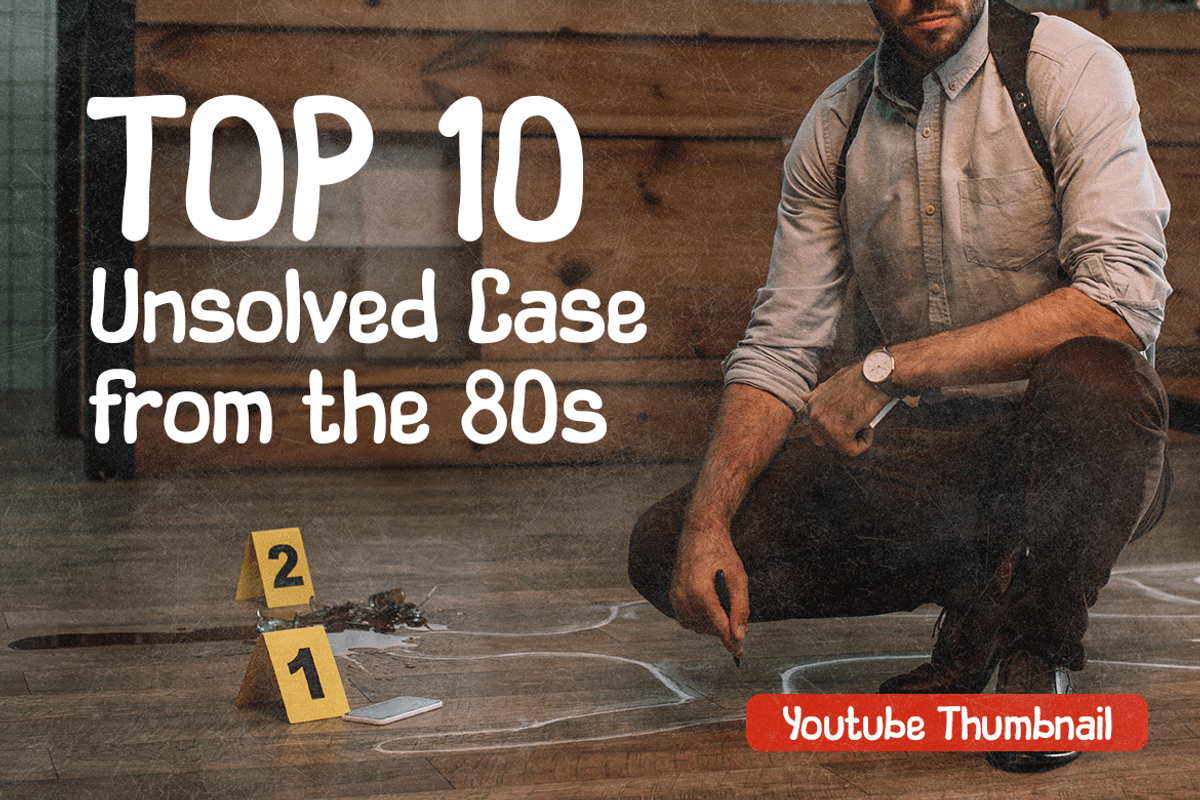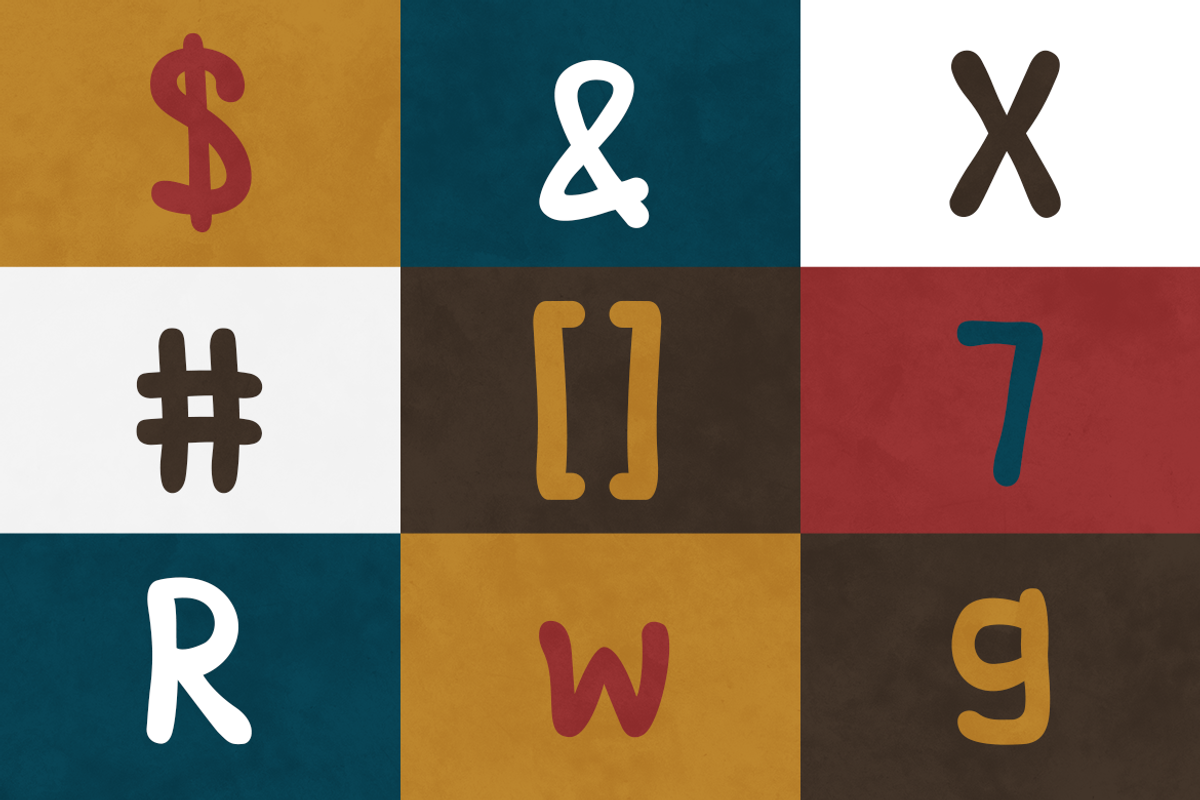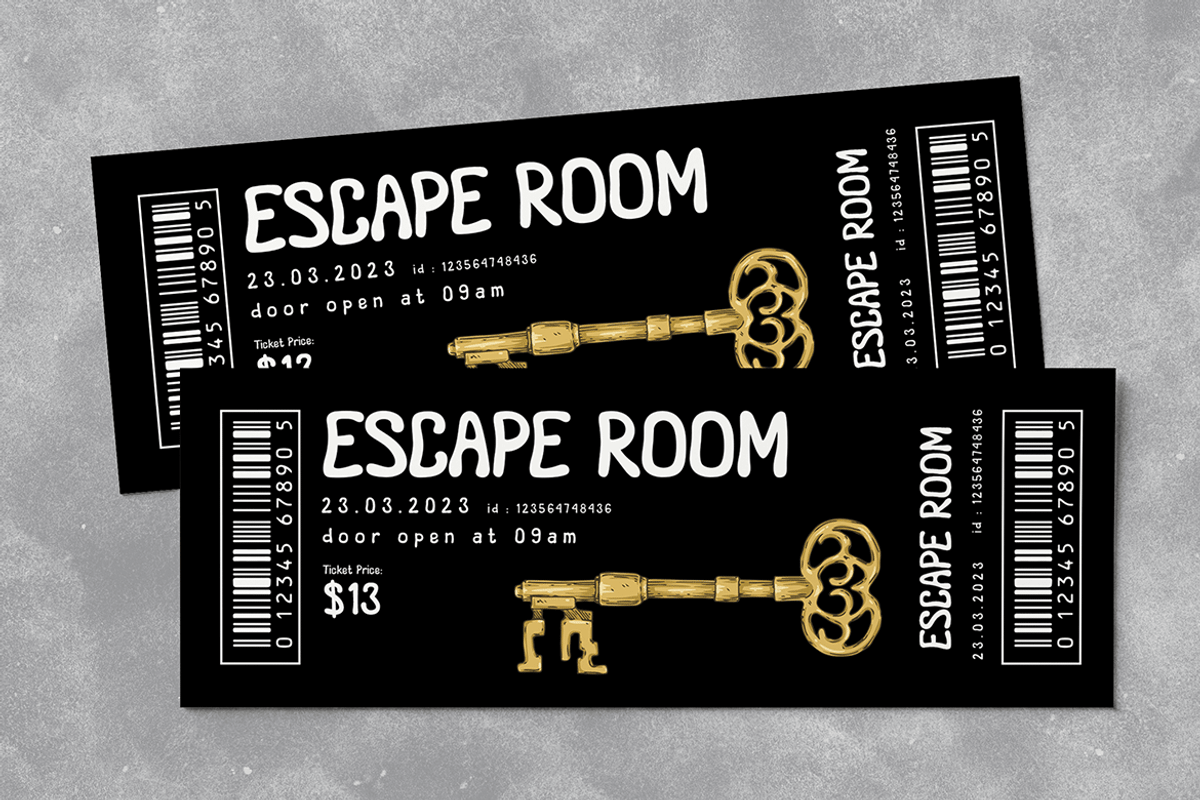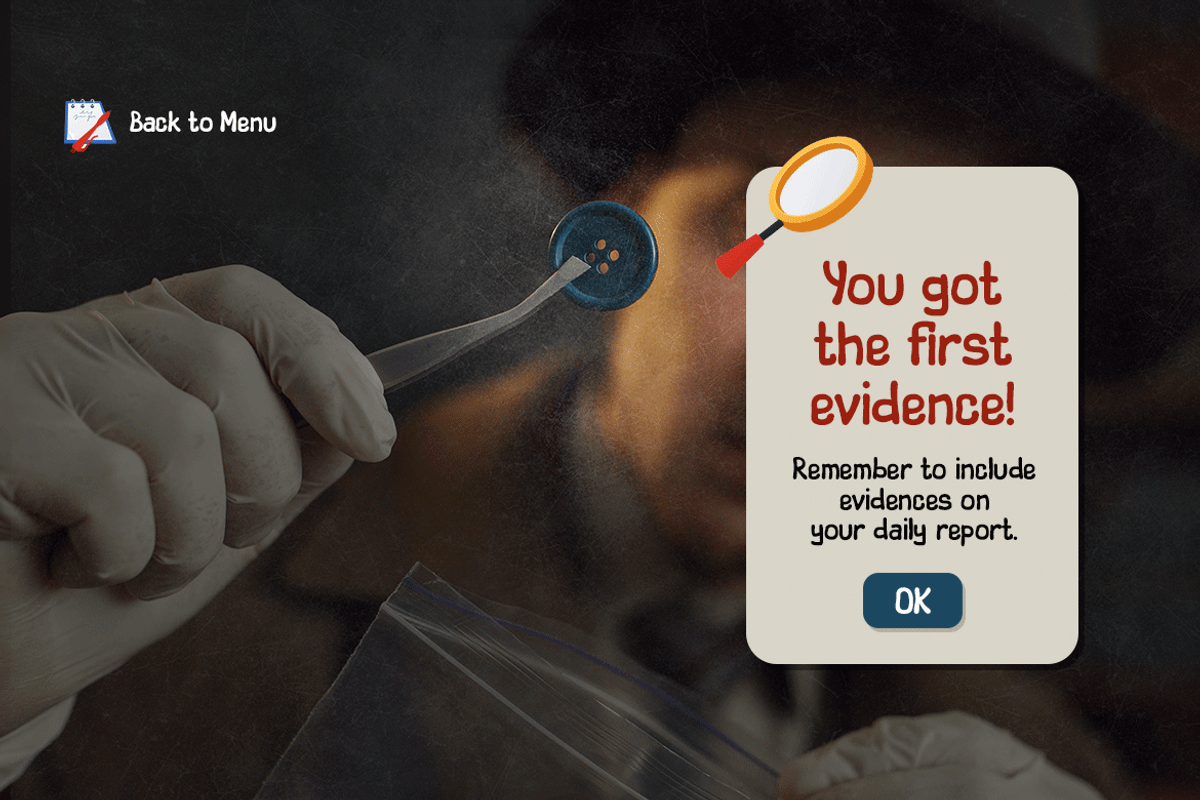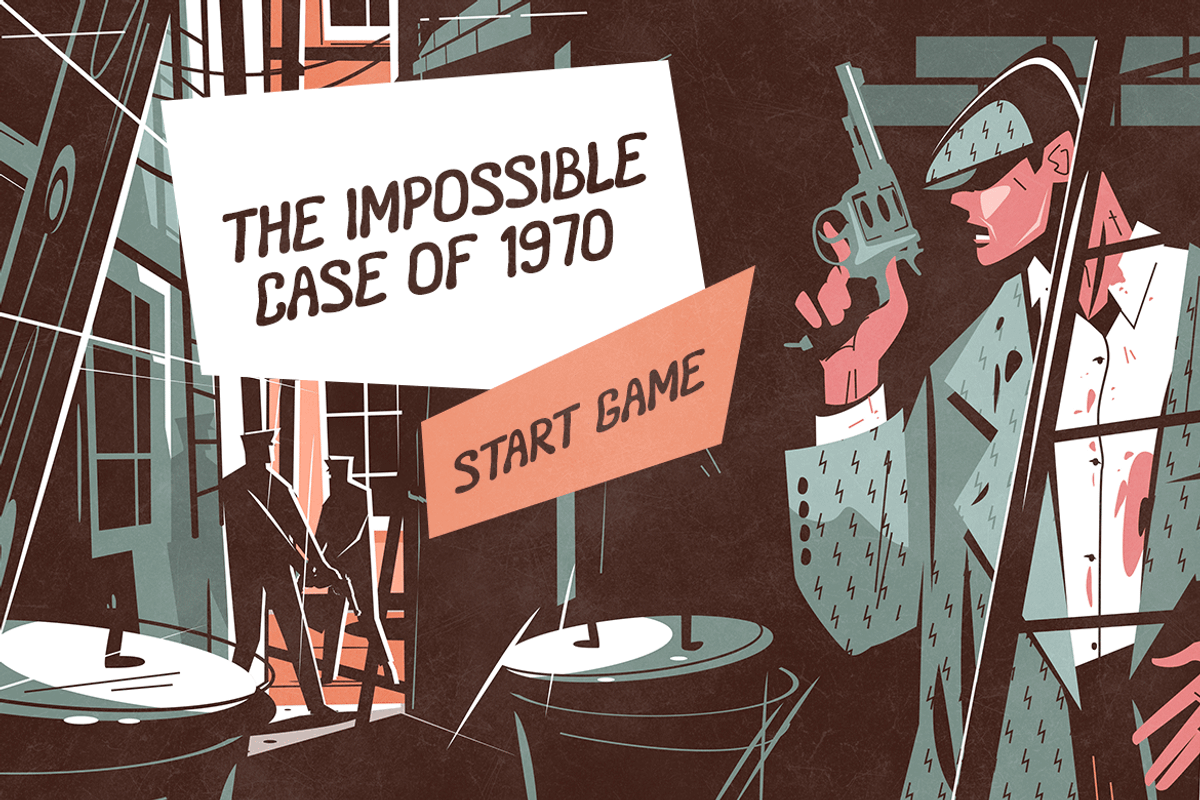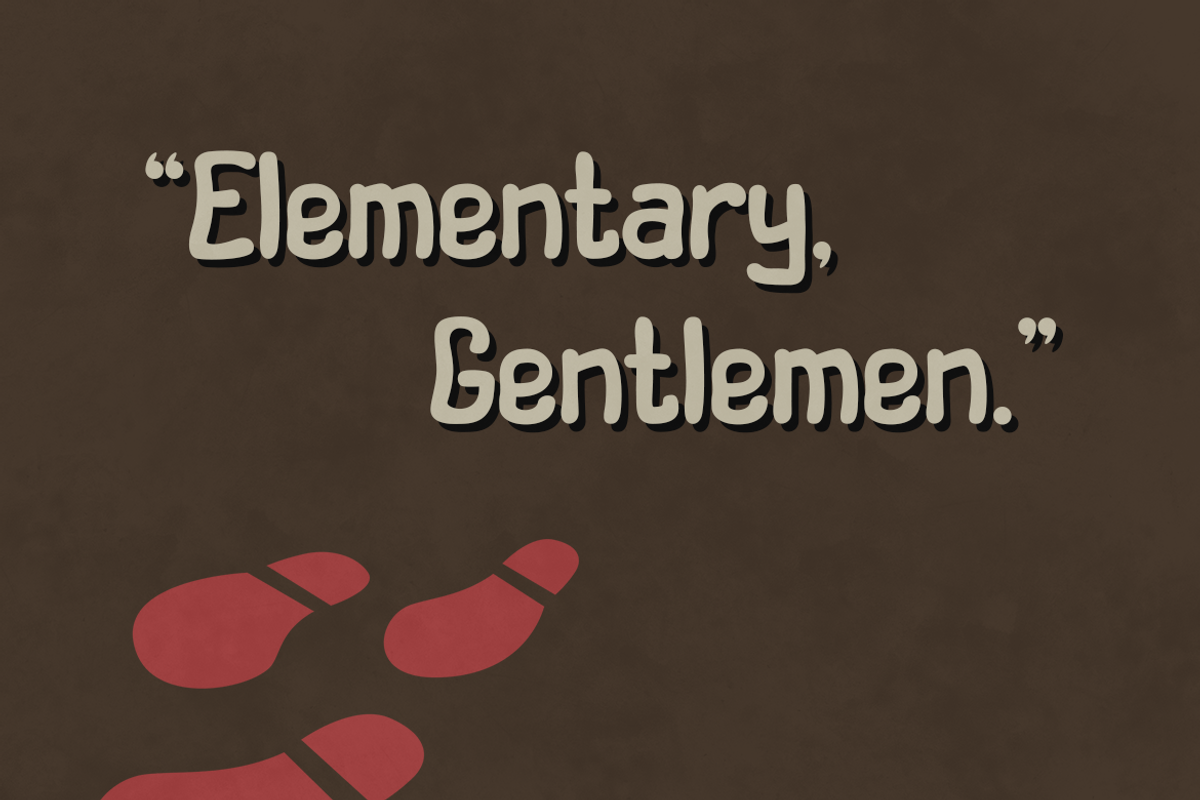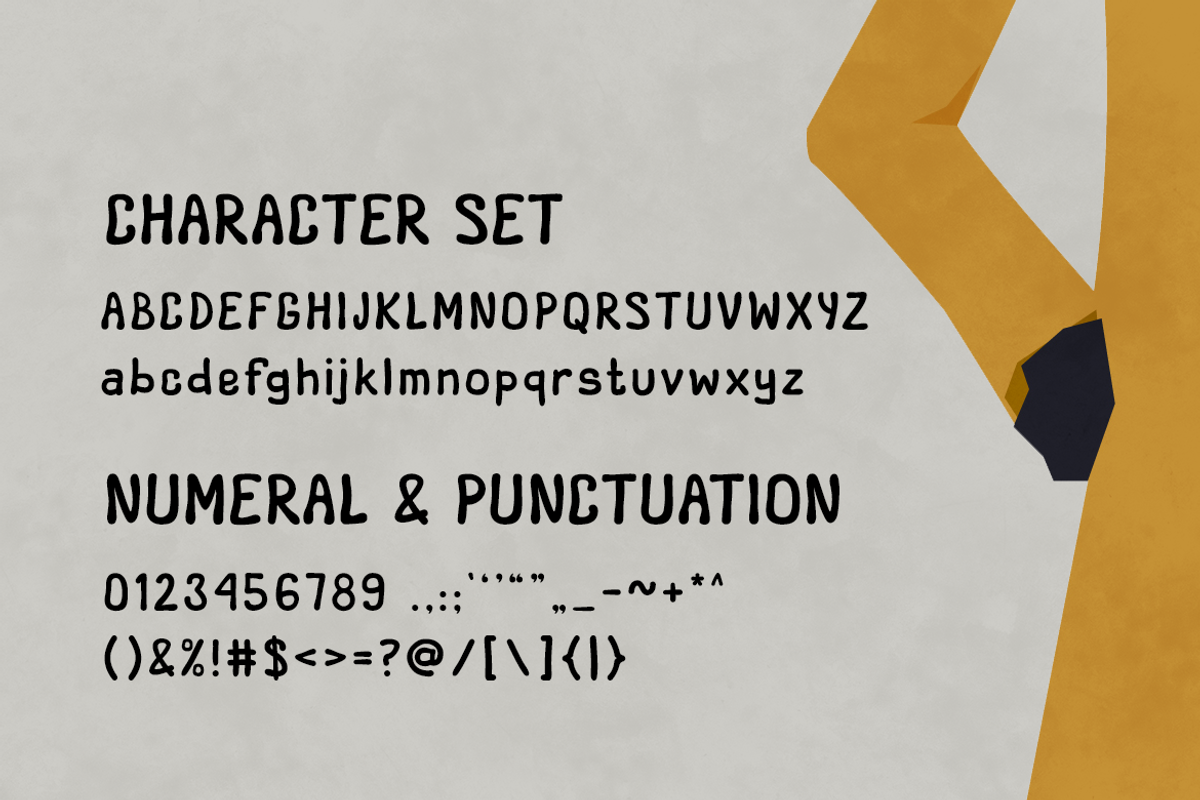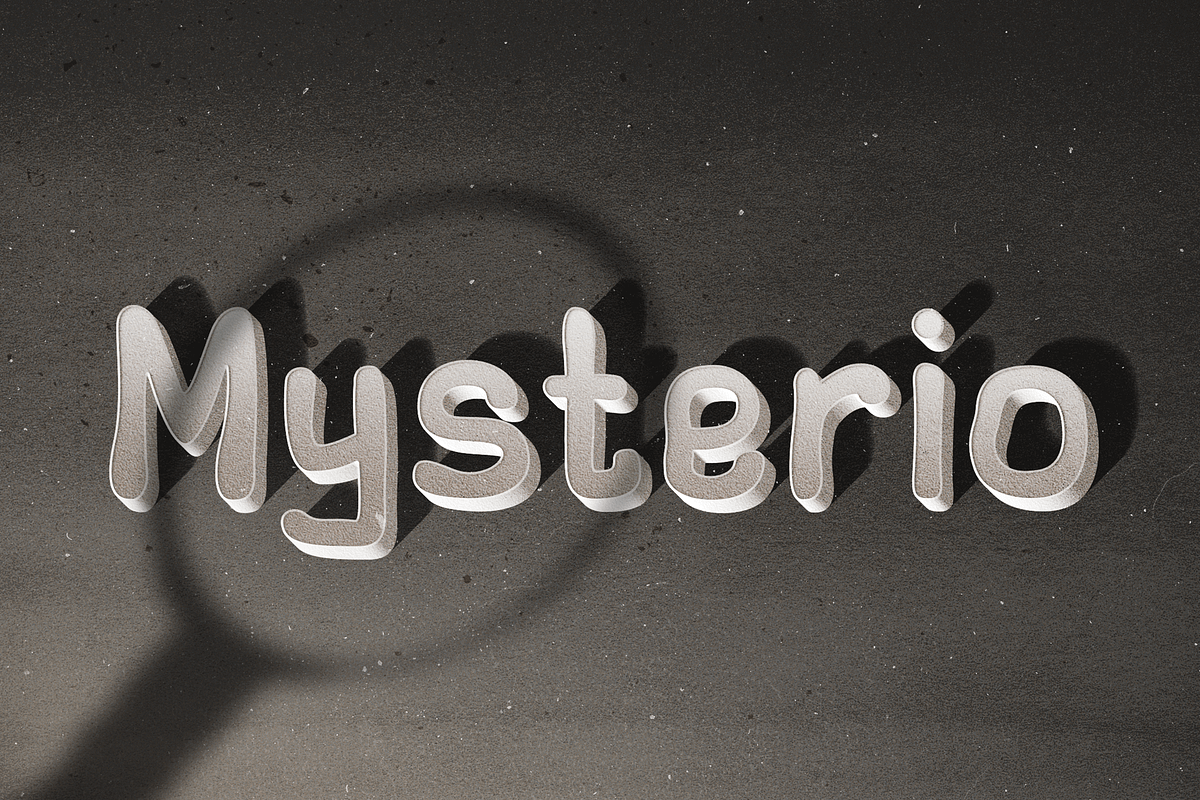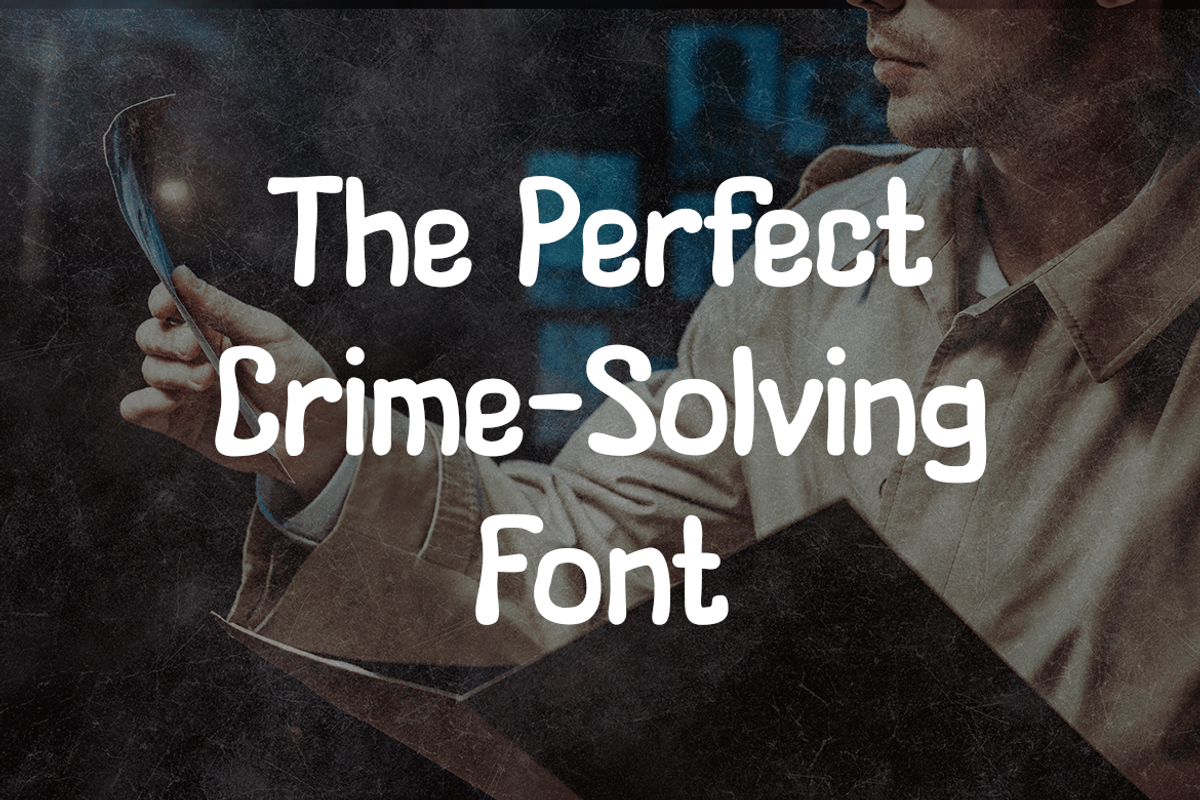
Mysterio – Comic Display Font
Introducing Mysterio – a charming Cartoon and Comic Display Font that is perfect for adding a touch of whimsy and playfulness to any project. With its unique blend of modern and cute elements, Mysterio is an ideal choice for those looking to add a fun and lighthearted touch to their designs.
Crafted by the experts at Modestype, this versatile font offers a range of applications, from school projects to gaming logos, Instagram quotes to YouTube thumbnails, and even movie titles. Its Sans Serif design ensures clear readability, making it a great option for kid’s books, while its quirky style is sure to catch the eye of adults as well.
Mysterio comes with plenty of nature foliage and floral elements, creating an organic and natural style of font that is both refreshing and contemporary. This makes it a great choice for those looking to tap into the growing demand for eco-friendly and sustainable designs.
Whether you’re looking to create something funny, cute, or just plain unique, Mysterio has got you covered. So why not add a touch of playfulness to your next project with this delightful Comic Display Font? Try it out today and see the magic for yourself!